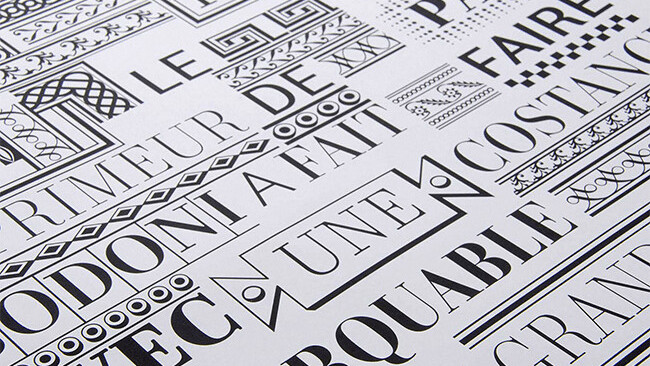
We’ve counted down our favorite fonts every month this year, and now it’s time to look back at what 2014 brought us in beautiful typography… in no particular order, of course.
Lián Types: Selfie
Selfie is a connected sans based on vintage signage scripts.
Font Bureau: Input
Input is a flexible system of fonts designed specifically for code.
Latinotype: Texta
Texta is a contemporary, rational, transparent and useful sans to compose all kind of texts.
Typotheque: Woodkit
Woodkit is a playful fixed-width display series of typefaces inspired by wood type.
Rene Bieder: Galano Grotesque
Galano Grotesque is a geometric sans in the tradition of Futura, Avant Garde, Avenir and the like.
Rosetta Type: Skolar Sans
Skolar Sans is an extensive typeface family for the age of responsive design. From gently thin to extra bold, the four subtly graded width variants will fit all your content needs.
Laura Worthington: Adorn
Warm and welcoming, Adorn offers seven display fonts, four script designs, monograms, ornaments, illustrations, banners, frames, and catchwords.
Bold Monday: Nitti Grotesk
Nitti Grotesk is the proportional companion to Nitti and part of a larger collection of grotesque-inspired typefaces.
Mika Melvas: Ahkio
Ahkio’s roots are in 1930s sign painting and showcard lettering but with a modern and individual twist.
Grilli Type: GT Sectra
GT Sectra is a contemporary serif typeface combining the calligraphy of the broad nip pen with the sharpness of the scalpel.
HVD Fonts: Brandon Printed
Brandon Printed has an eroded, printed look with four variations of every letter.
Process Type Foundry: Pique
A script with a crisp energy and buoyancy that only the collaboration of paper and screen can lay claim to.
Kyle Wayne Benson: Jeames
Jeames brings familiarity to the often detached feeling extended serif genre. The curved, heavy, joints let the letters bounce along while the proportions and contrast keep your eyes grounded.
Type Supply: Queue
Queue was drawn to reflect the contradictory and complex world of today.
Petra Docekalova: Monolina
Monolina is a contemporary monolinear script that is based on the contrast between classical calligraphy and quickly jotted manuscript.
Production Type: Panorama
An arsenal of nearly boundless possibilities, from ethereal thin to blinding black, with an uncommonly handy series of steps in between.
TipoType: Libertad
Libertad is a sans serif that mixes humanist and grotesk models.
Klim: Domaine Sans
Domaine Sans follows the similar structural logic as Domaine. Both the Domaine Sans Display and Fine have exuberant detail and high contrast; whereas Domaine Sans Text is more robust and pragmatic for extended text-setting.
Calligrafiction: Peter
Peter is a neo-grotesque sans with rational and clear basic letterforms.
Milieu Grotesque: Patron
Generous x-height, distinctive stroke endings and an unconventional shift in balance.
Parachute: Bague Sans Pro
A versatile monoline typeface with a distinct and eye-catching personality.
Bold Monday: Brando
Brando is a contemporary serif with humanist proportions.
Positype: Love Script
Love Script is a font with a big heart.
Positype: Lust Slim
Lust Slim is packed with alternates to play with – enough to turn you on and satisfy.
Hoefler & Co: Surveyor
A monumental family of typefaces designed for print and screen.
Font Bureau: Tilda
Tilda is a script typeface with size-specific styles by Jessica Hische.
Sudtipos: Courtesy Script Pro
Courtesy Script Pro captures the elegance and propriety of finely practiced Spencerian penmanship.
Font Bureau: Big Caslon FB
An expansion of Matthew Carter’s classic display serif.
FontFont: FF Franziska
FF Franziska – discreet, functional and modern, but with real personality.
FontFont: FF Bauer Grotesk
FF Bauer Grotesk – revived and better than ever with six weights and italics, this is the must-have grotesk.
Suitcase Type Foundry: Urban Grotesk
Urban Grotesk attempts to follow the best of traditions of grotesk typefaces.
Typotheque: Parmigiano
Parmigiano Typographic System (named after Parma, the city where Bodoni established his printing house) has the stated ambition to be the most extensive family of fonts ever to have been inspired by Giambattista Bodoni.
Monotype: Quire Sans
Quire Sans is highly functional and sexy at the same time.
Briefcase: BC Kakao
BC Kakao is a font family of stylistically similar fonts loosely based on calligraphy and handwriting.
Sudtipos: Horizontes Script
Horizontes Script – finding a balance between spontaneity, elegance and beauty.
Stone Type Foundry: Magma
Magma is a rare sans serif typeface family designed explicitly for use in both text and display applications.
Typonine: Identitet
Identitet is a system designed to work together as a unified whole.
Hold Fast Foundry: Industry Inc
Industry Inc comprises numerous standalone styles along with a layered type system.
Avondale Type Co: ATC Overlook
A clean, versatile font with modern sensibilities and a dash of character.
Hoftype: Foro Sans
Foro Sans is well suited for ambitious typography.
Commercial Type: Marr Sans
An eccentric British uncle to Morris Fuller Benton’s Franklin and News Gothics.
Commercial Type: Darby
A contemporary family of two related sans serifs: one is the functional Darby Sans; the other a refined display version for large sizes, where the contrast is dramatically higher.
Ludwig Type: Diogenes
Diogenes is an elegant and crisp text typeface.